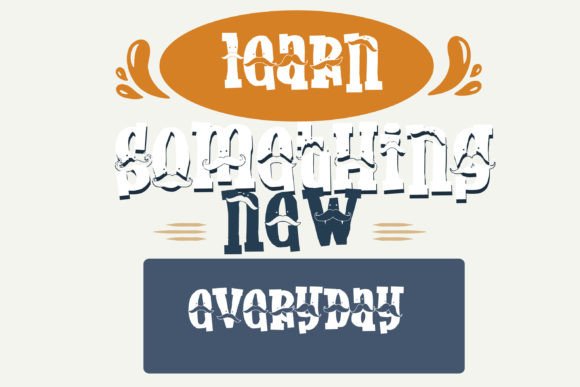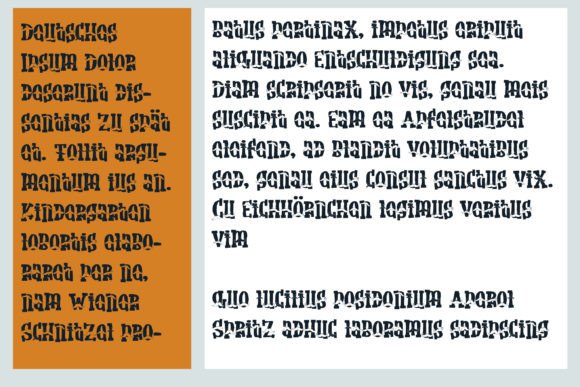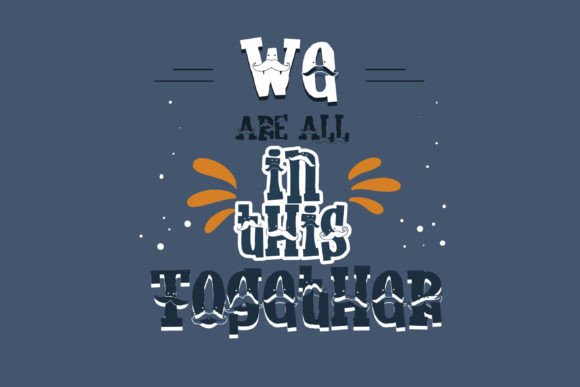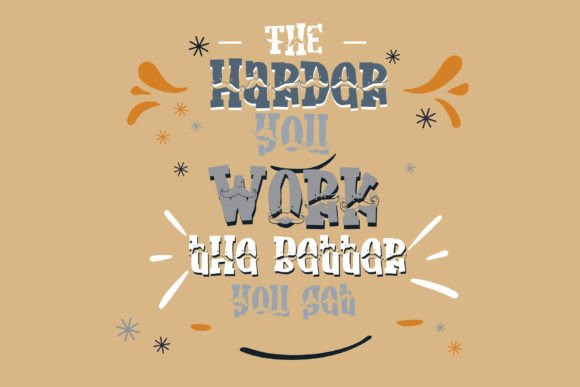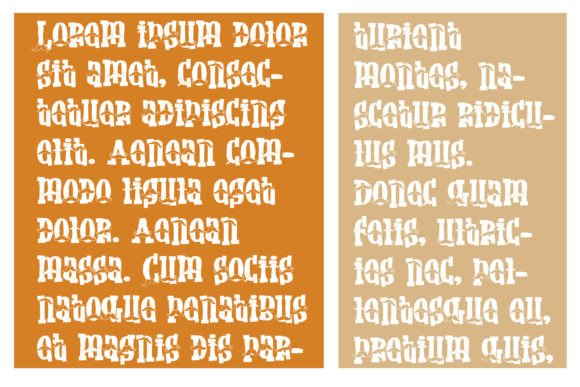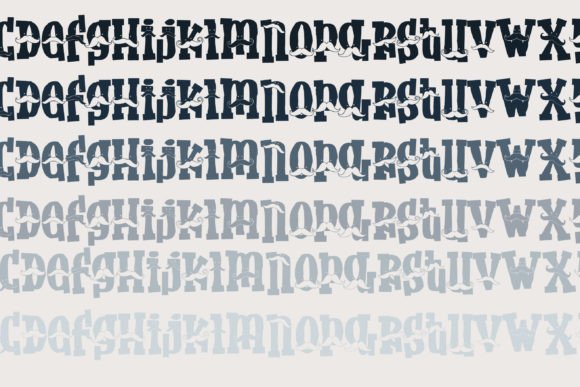
Introduction to Pardner Stache Font
This hand-crafted, serif features mustaches throughout.
A hand-crafted font is a font that is designed to look like it was written by hand It is often used for invitations, greeting cards, and other items.
Key Features of Pardner Stache Font
Why Choose Pardner Stache Font?
Pardner Stache Font offers exceptional quality and versatility, making it a valuable addition to your design toolkit. Whether you’re creating for personal projects or commercial use, Pardner Stache Font delivers professional results.